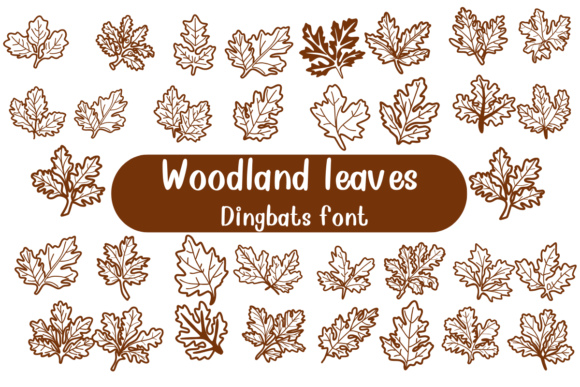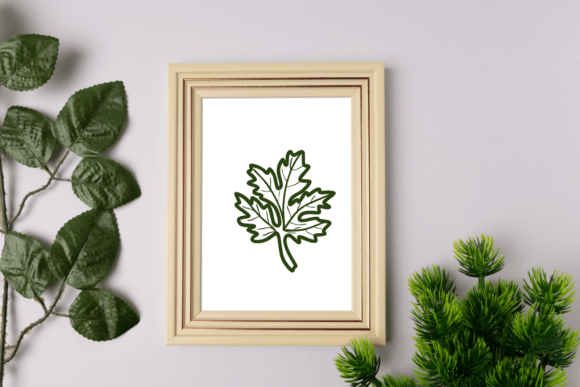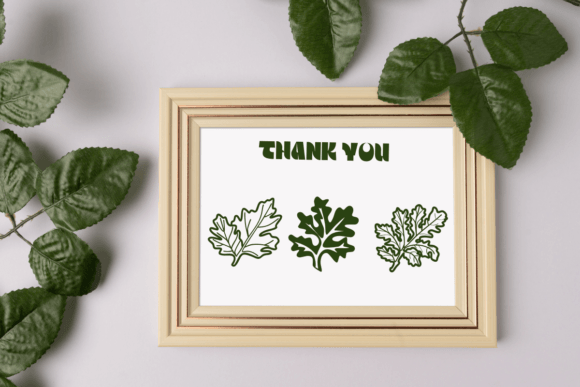
Woodland Leaves Font
Woodland leaves is a dingbats font with ta sketched theme. This font can enhance your creative projects such as wedding invitations, DIY, crafts, decorations, logos, and many other creative ideas.